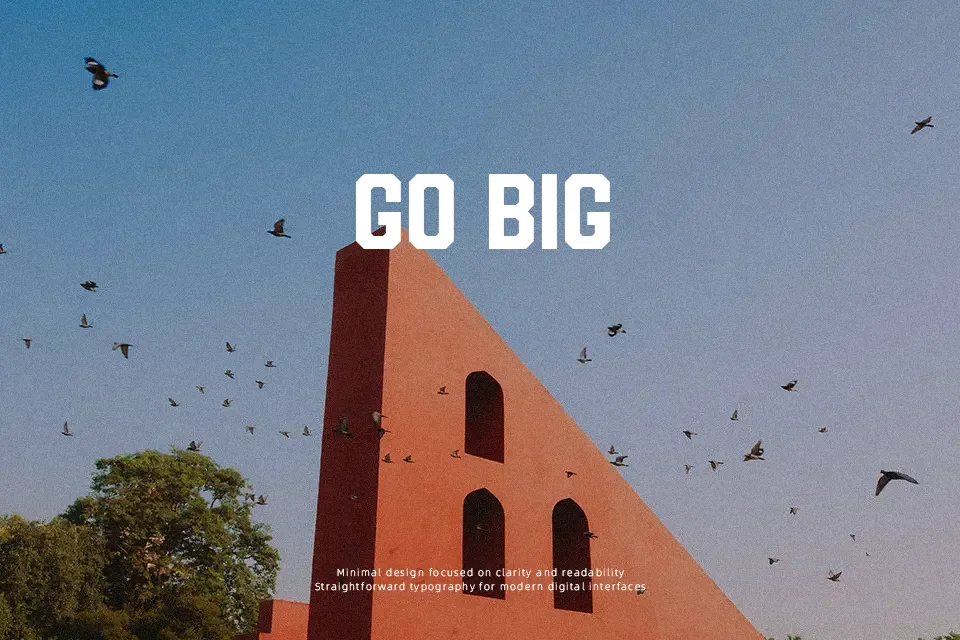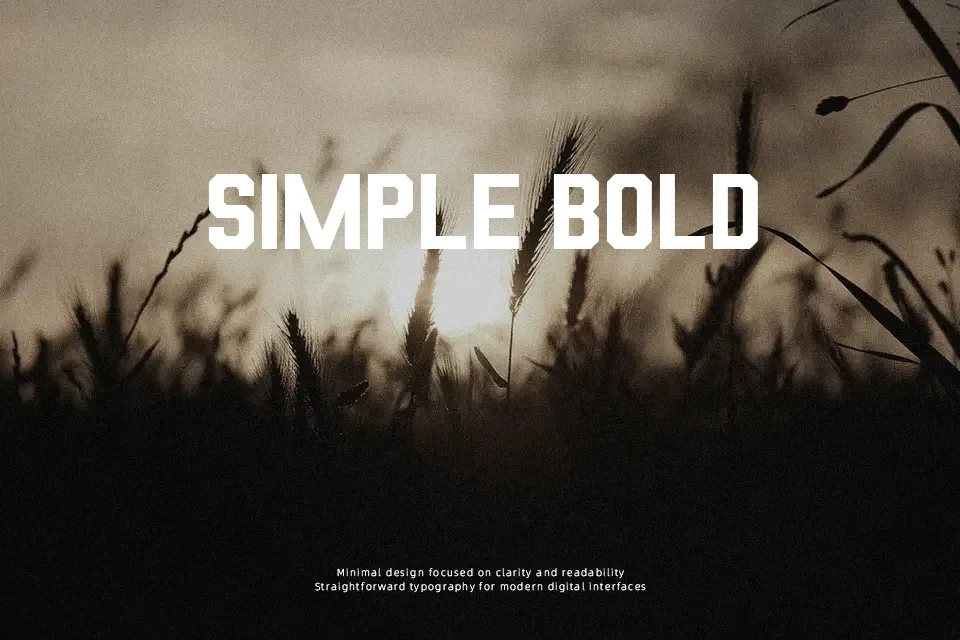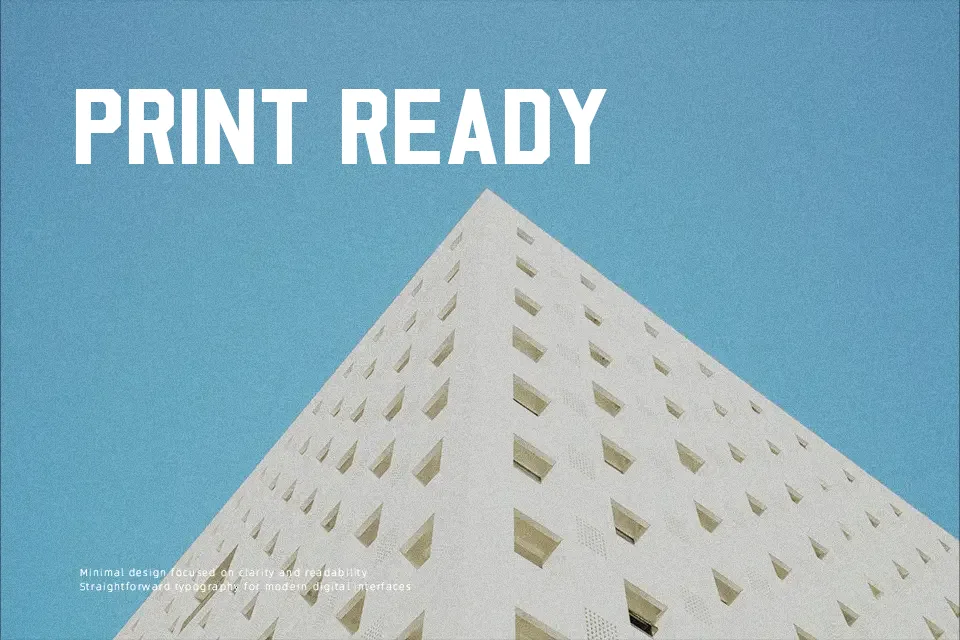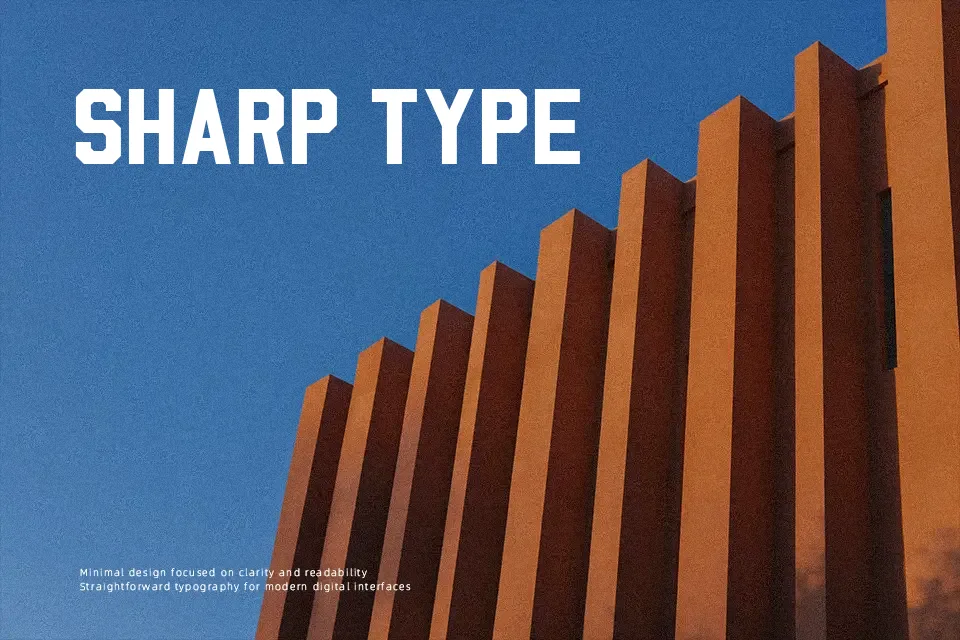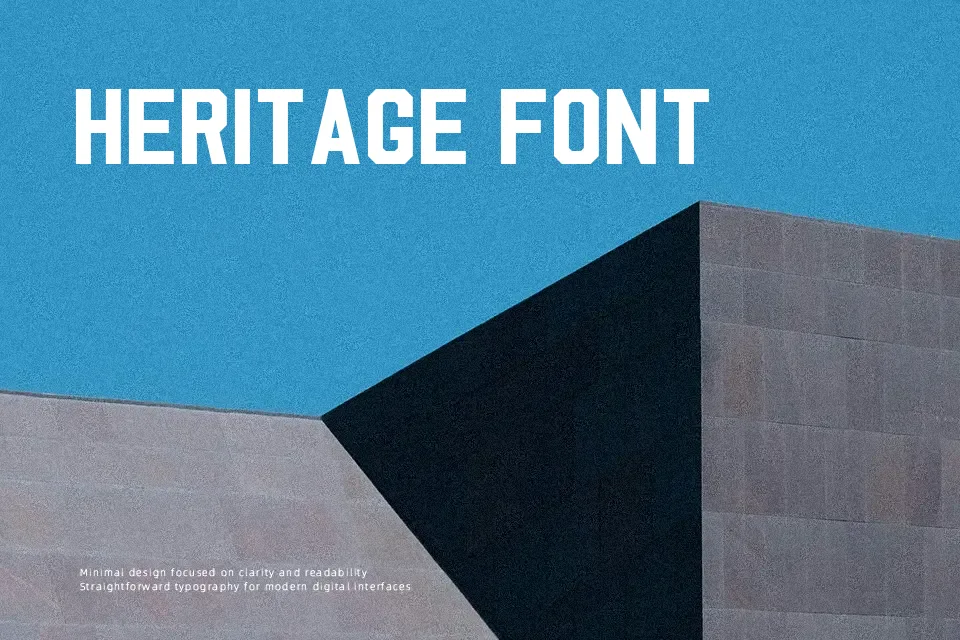
Super Bowl Font
Featuring prominent angular contours and uniform stroke thickness, Super Bowl Font embodies classic athletic block lettering built for commanding display environments. The letterforms exhibit condensed proportions with clipped diagonal corners, creating an authoritative, structured rhythm across tightly spaced headlines. Consistent vertical alignments and sturdy stems provide reliable legibility when viewed from a distance, making the design well suited for stadium banners, athletic jersey numbering, and esports graphics. However, the heavy weight and compact horizontal widths significantly reduce visual comfort in extended body paragraphs. Bold character shapes preserve clean edges at prominent scale, offering strong impact for title treatments.
athletic jersey numbering, sports event posters, stadium banner headlines, varsity apparel graphics
continuous body text, editorial magazine paragraphs, mobile UI caption labels, legal contracts
Perfect for advertising, headline, and logo, with a bold and condensed style.